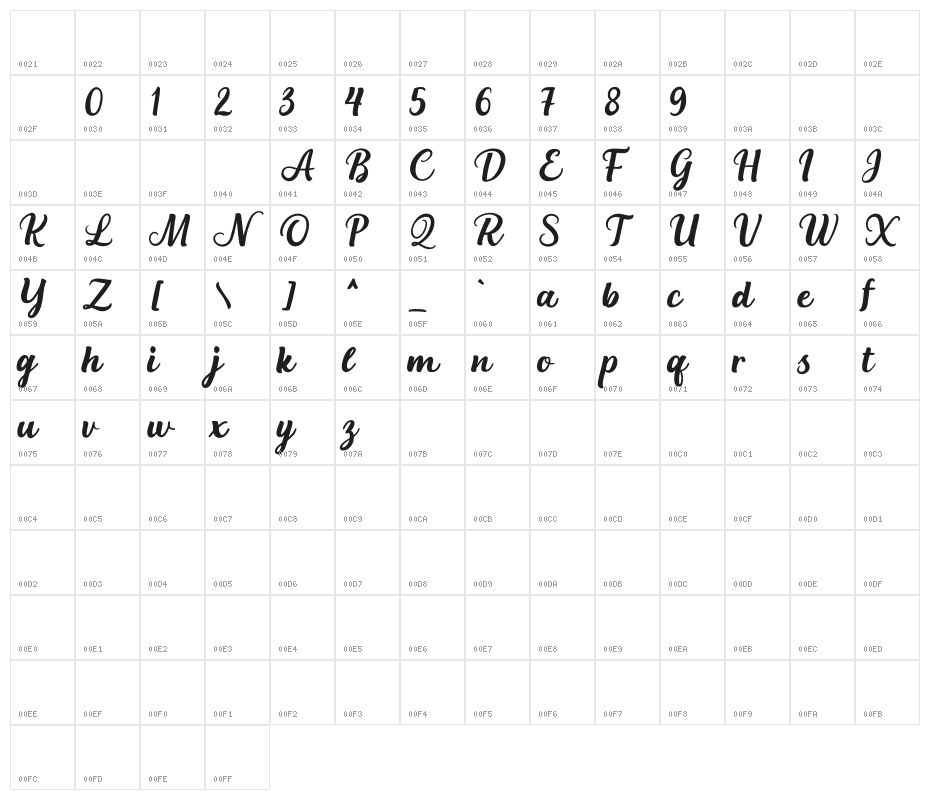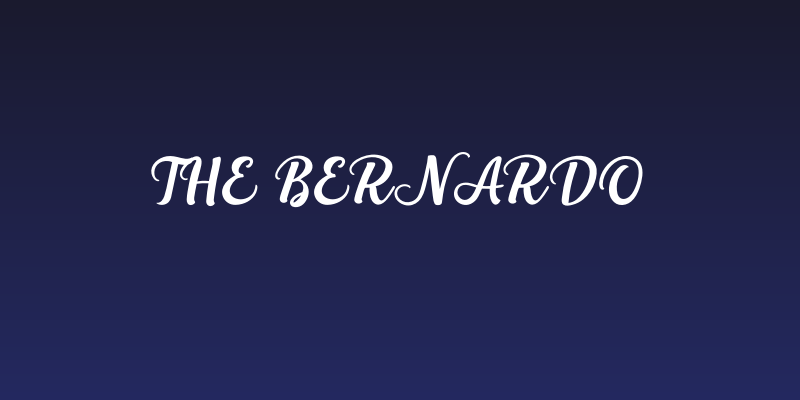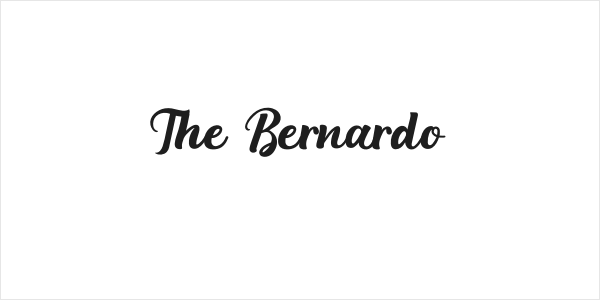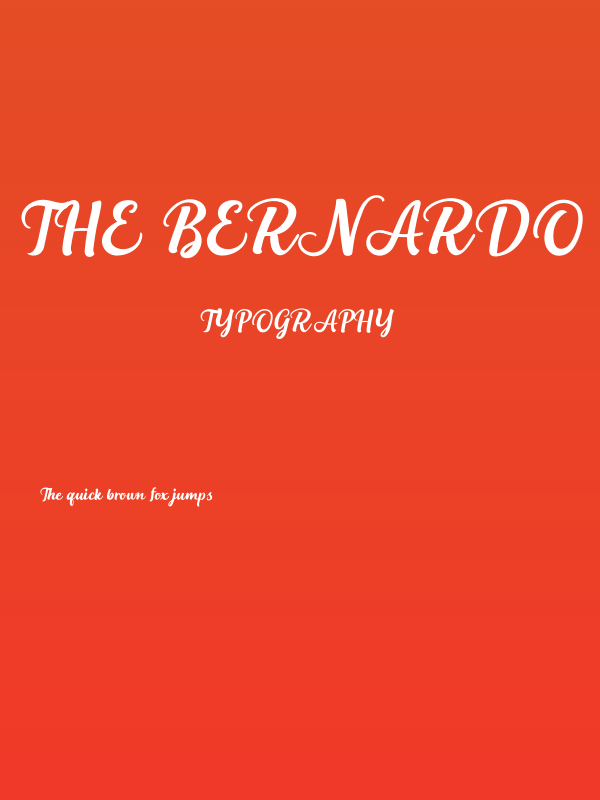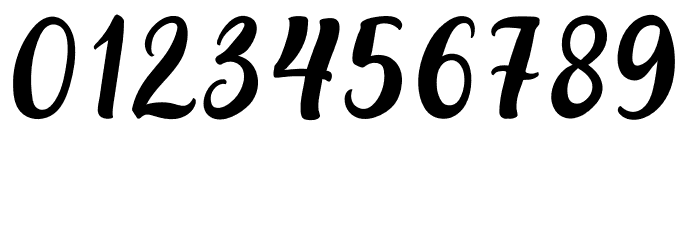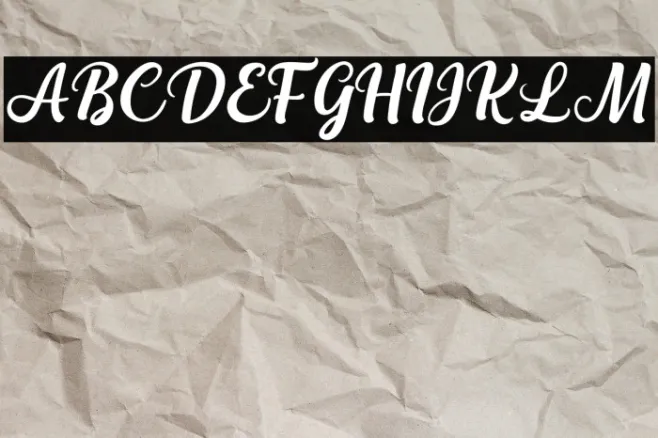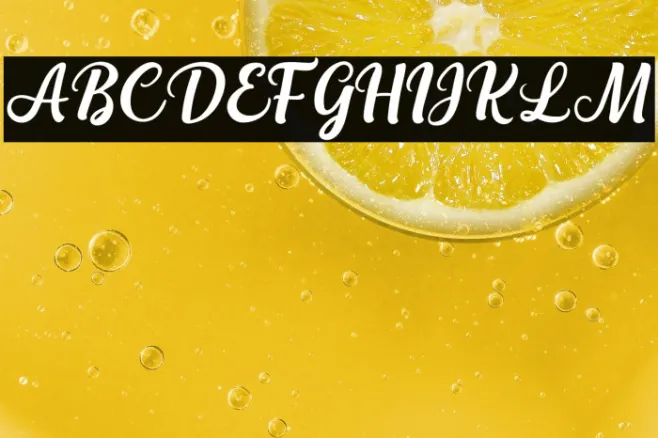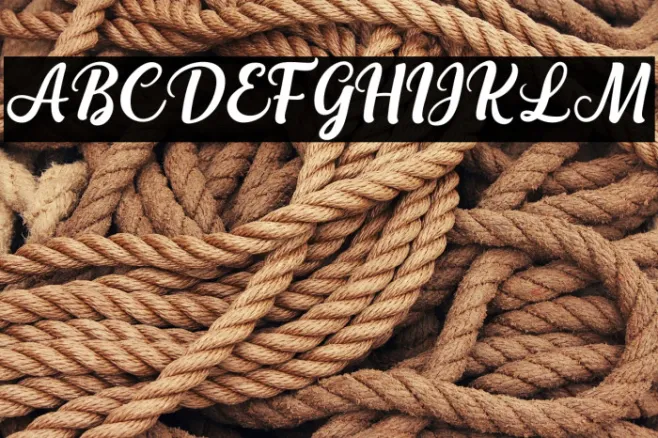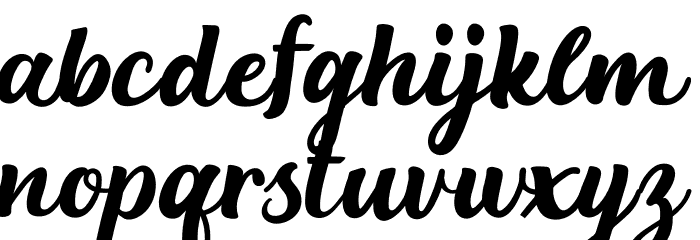
The Bernardo Font
The Bernardo Description
This font features a flowing, cursive style with elegant, sweeping curves and a smooth, connected script. The uppercase letters are bold and prominent, while the lowercase letters maintain a consistent flow, enhancing readability. The numerals are designed with a similar flair, ensuring they blend seamlessly with the alphabetic characters. The special characters are crafted to match the overall aesthetic, making this font versatile for various uses. Its design is both classic and modern, offering a timeless appeal that can elevate any project.